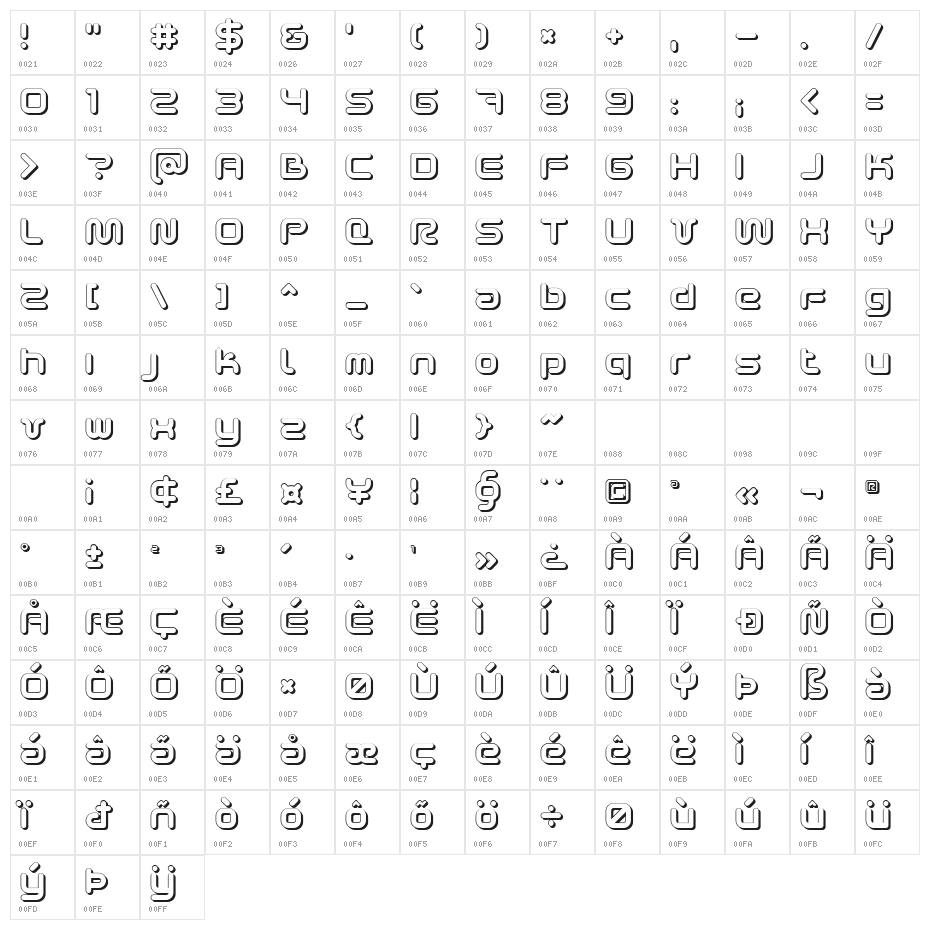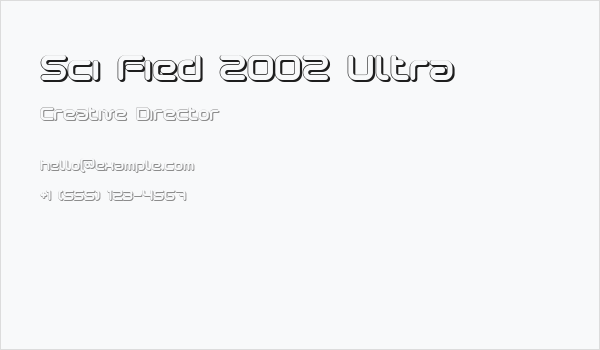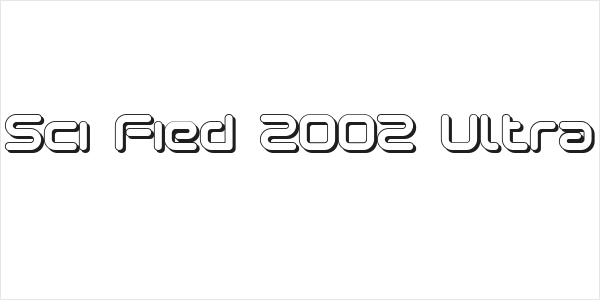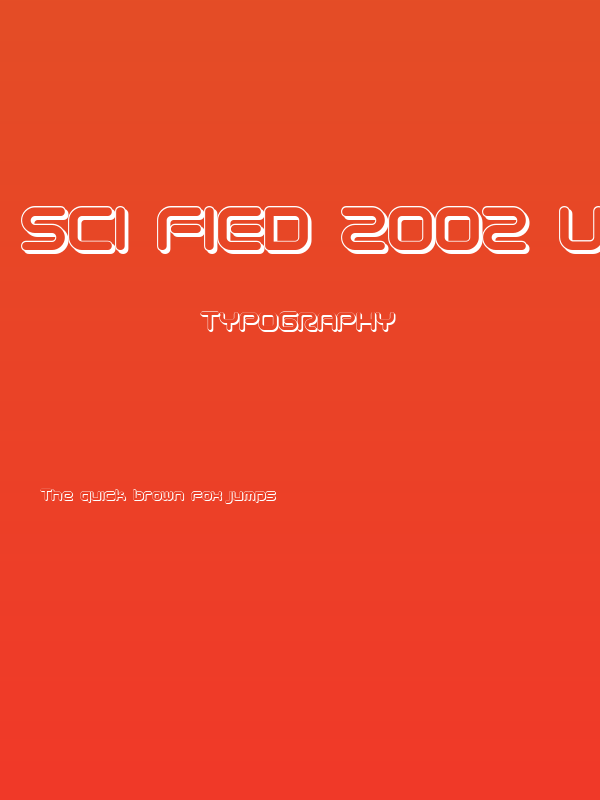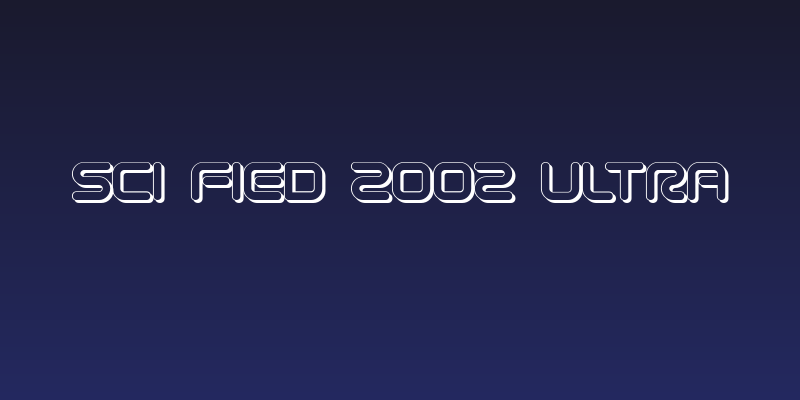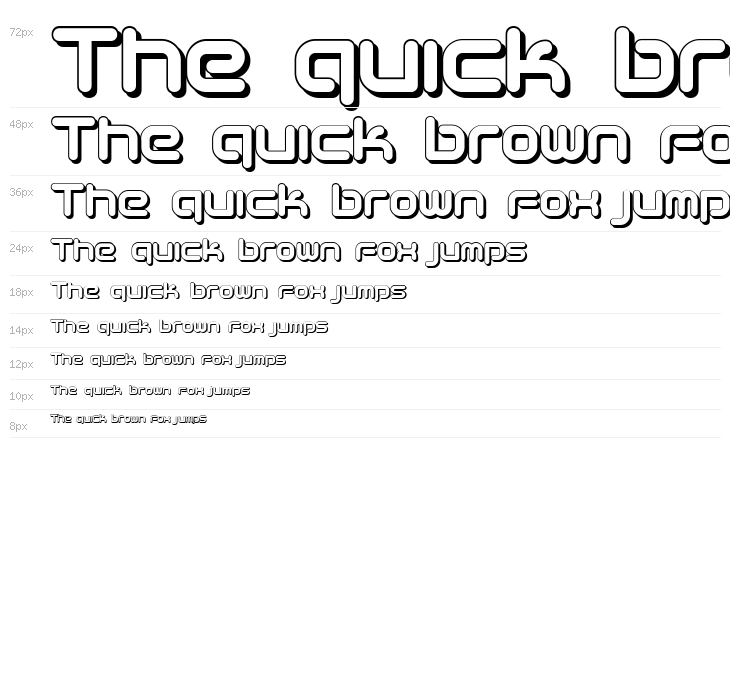
Sci Fied 2002 Ultra Font
Sci Fied 2002 Ultra Description
This futuristic font features a bold, rounded design with a distinct outline that gives it a three-dimensional appearance. The characters are uniformly wide, creating a cohesive and structured look. The uppercase and lowercase letters maintain a consistent style, with smooth curves and geometric shapes that evoke a sci-fi aesthetic. Numbers and special characters are designed to match the overall theme, ensuring versatility across different uses. The font's unique style makes it ideal for projects that require a modern and tech-inspired look.
| Proposed Projects | Ideal for sci-fi movie posters, tech company logos, video game titles, and futuristic-themed event invitations. |